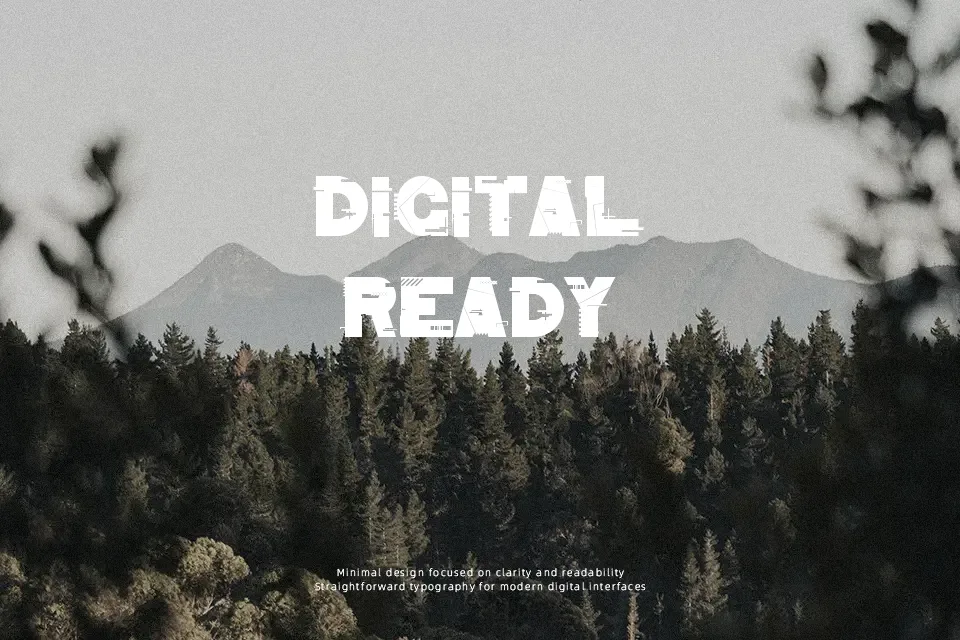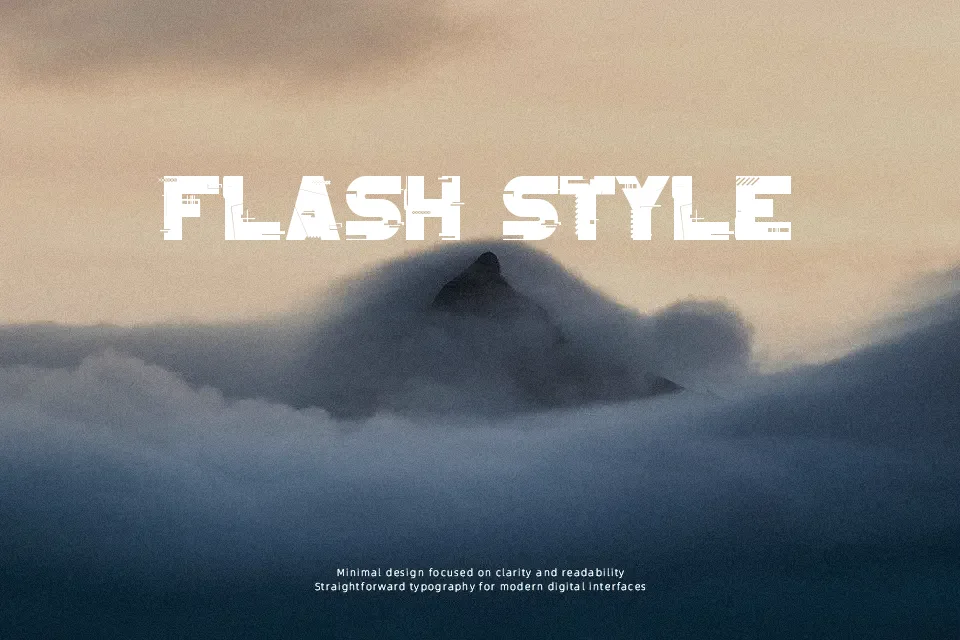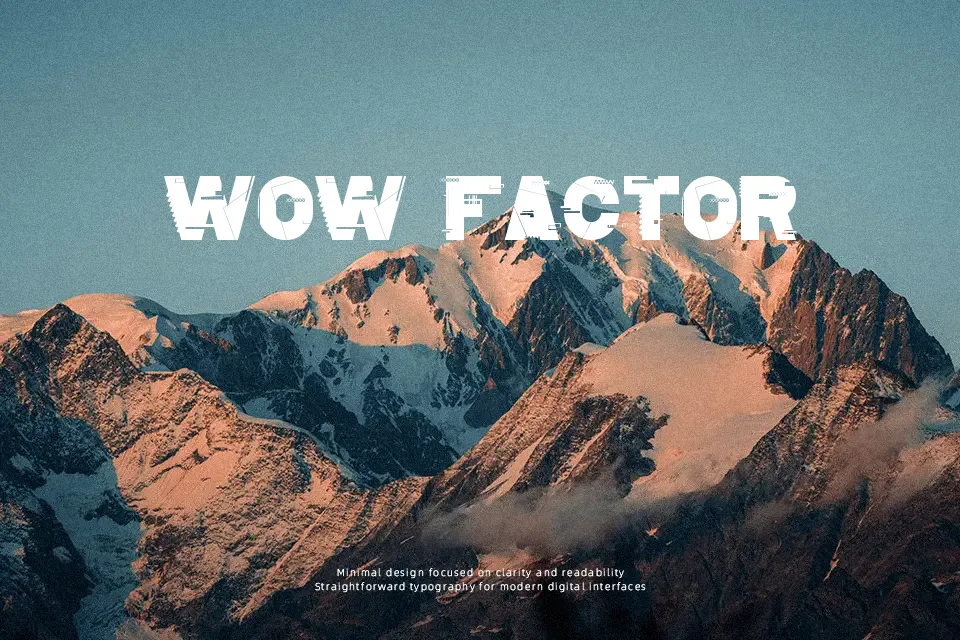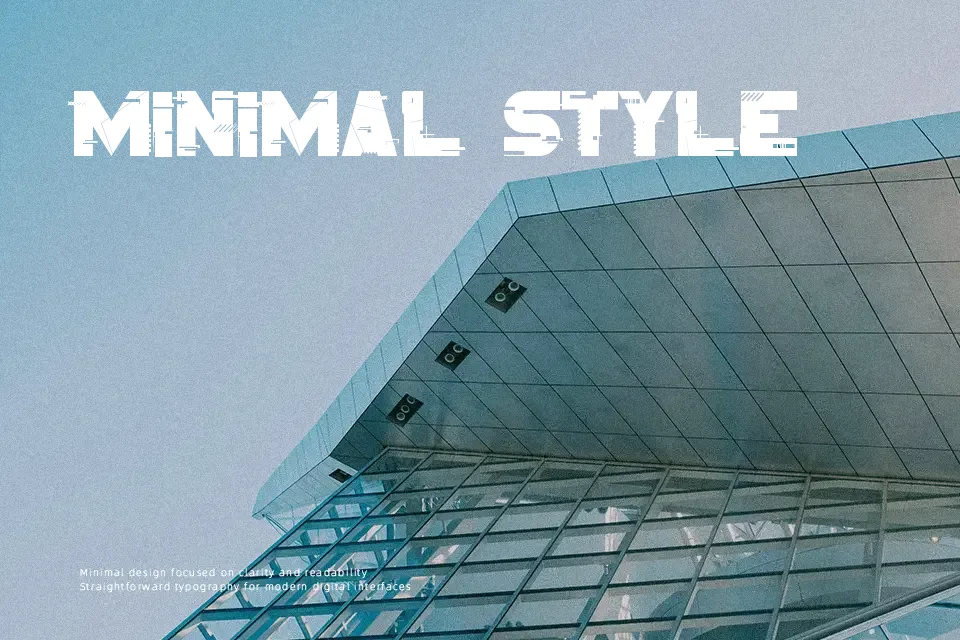
Distorter Font
Distorter Font is a heavy display design built around angular cuts, fragmented strokes, and compact spacing that make each word feel tense and mechanical. The letterforms are bold and squared off, with enough distortion to add movement without turning fully chaotic. It works best when you want a headline to feel aggressive, digital, or slightly industrial, especially for music artwork, esports graphics, packaging with a loud shelf presence, or event posters. In moderation, the effect looks sharp. Used for long copy, though, it quickly becomes tiring, and the damaged shapes can make reading slower than expected.
Perfect for gaming, logo, and music, with a bold and decorative style.